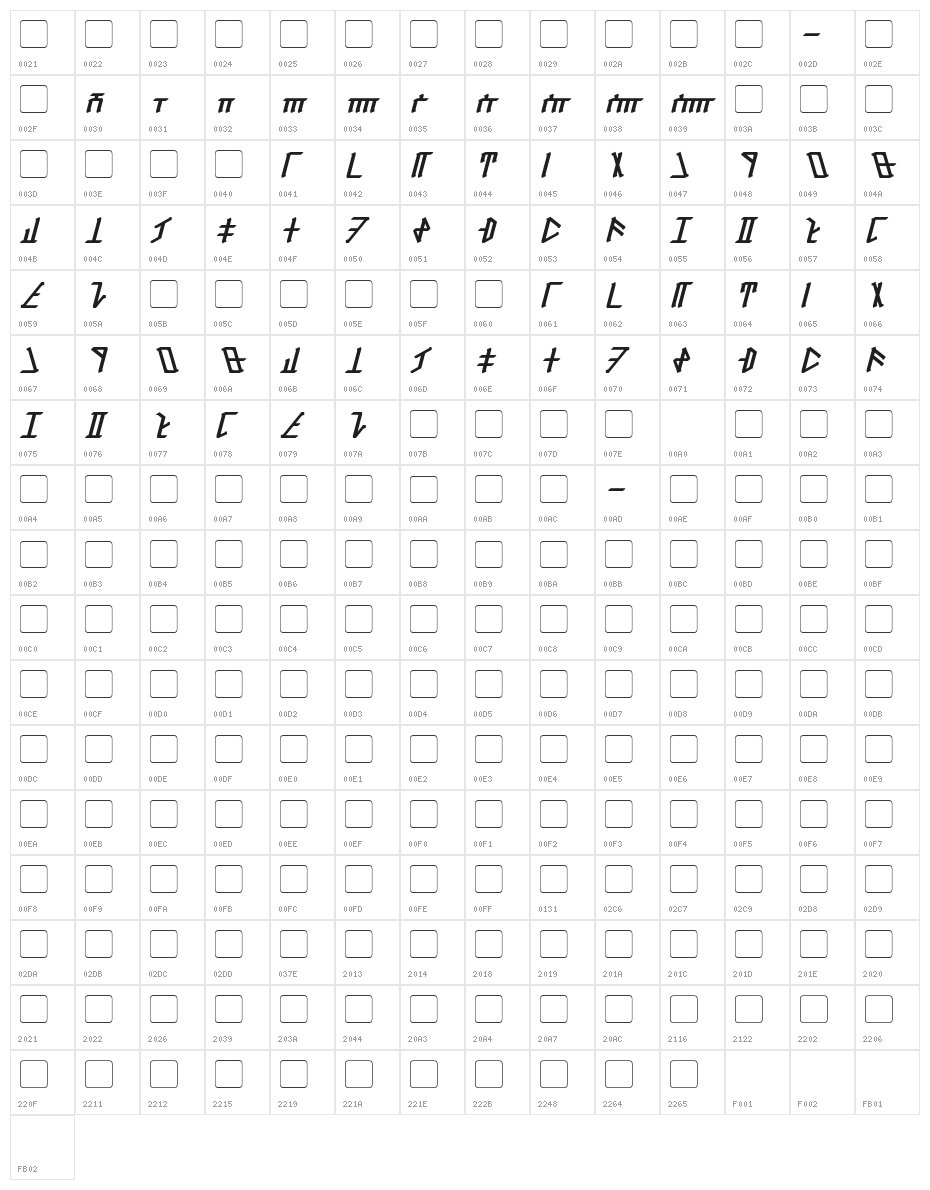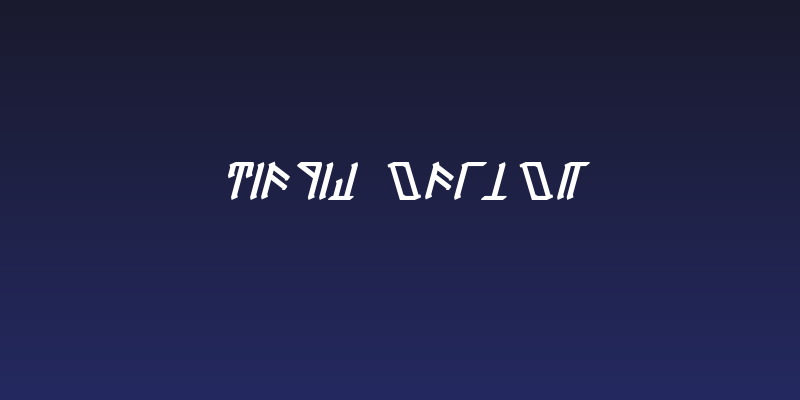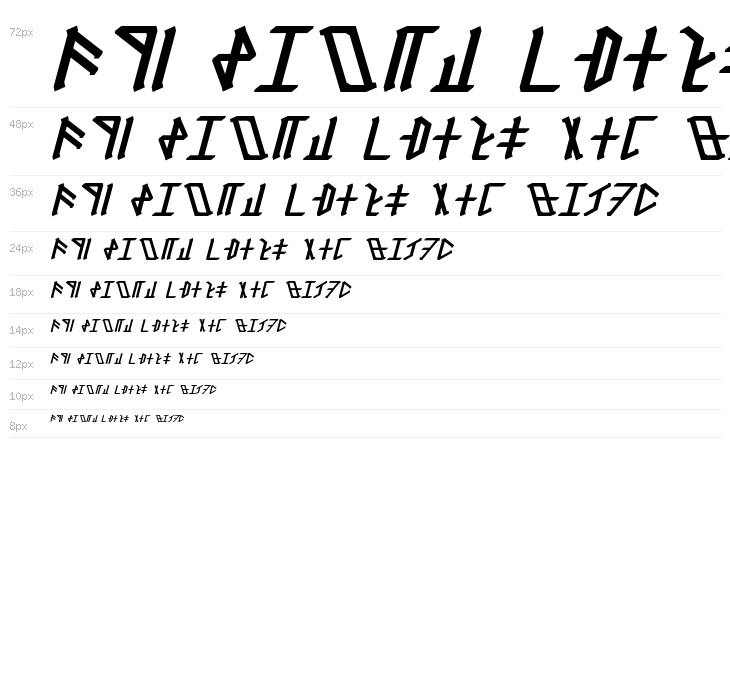
Dethek Italic Font
Dethek Italic Description
This font features a unique, angular design reminiscent of runic or ancient script styles. The characters are sharply defined with a consistent slant, giving it an italicized appearance. The strokes are bold and uniform, creating a strong visual impact. The overall aesthetic is both mysterious and modern, making it suitable for projects that require a touch of fantasy or historical intrigue. The spacing between characters is tight, enhancing the compact and cohesive look of the text.
| Use Case | Logos, Headlines, Themed Events |
| Proposed Projects | Ideal for fantasy-themed designs, game titles, book covers, or any project needing a mystical or historical touch. |